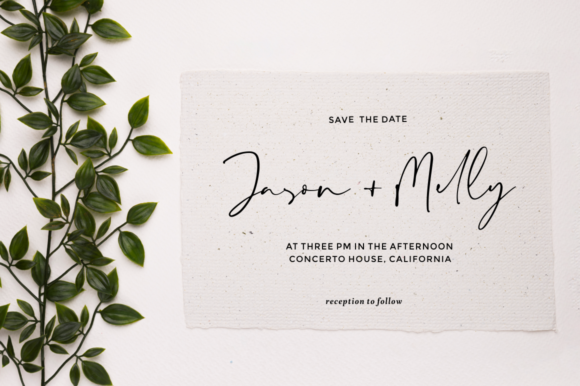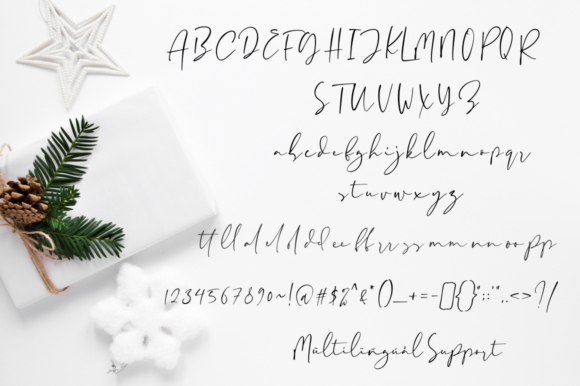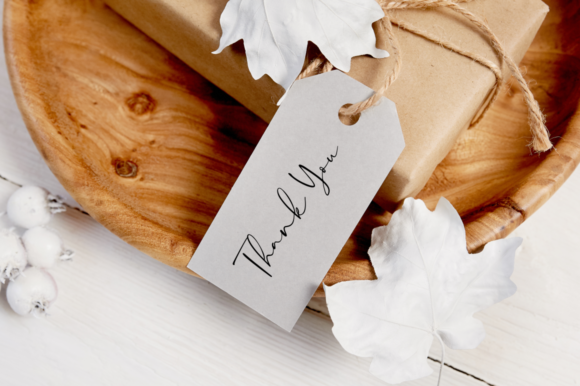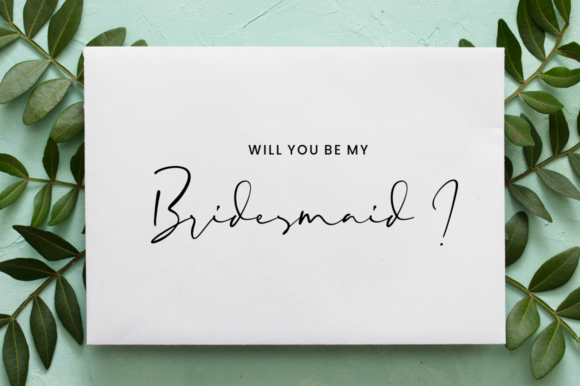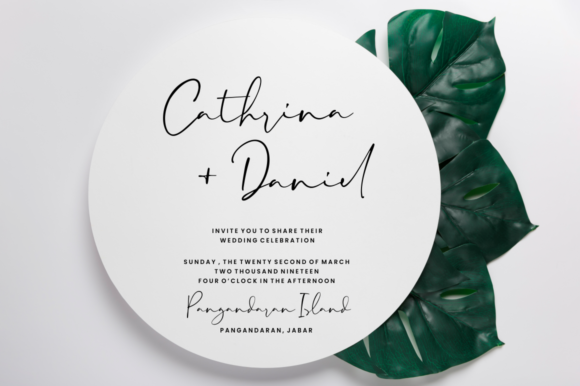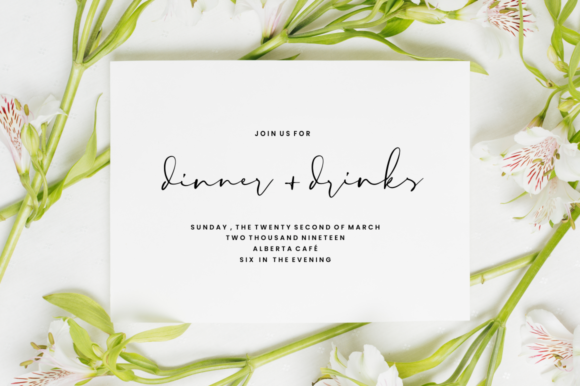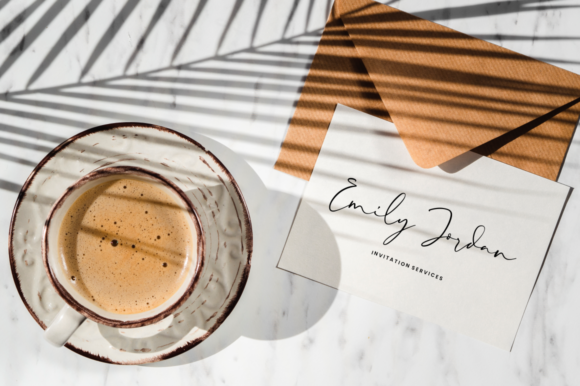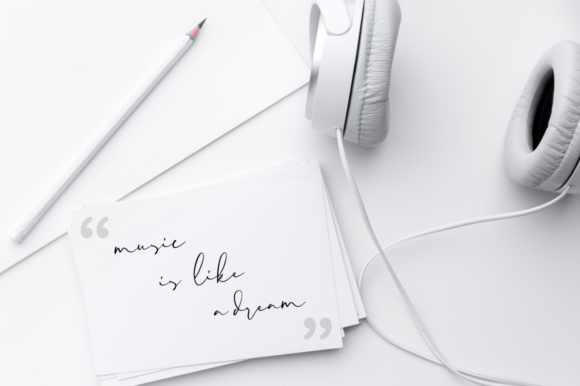
Paris Tonight Font
About Paris Tonight Font
Paris Tonight is a natural handwritten font, dreamy and romantic. Sweet and dainty, this font is the most beautiful choice for each of your design ideas!